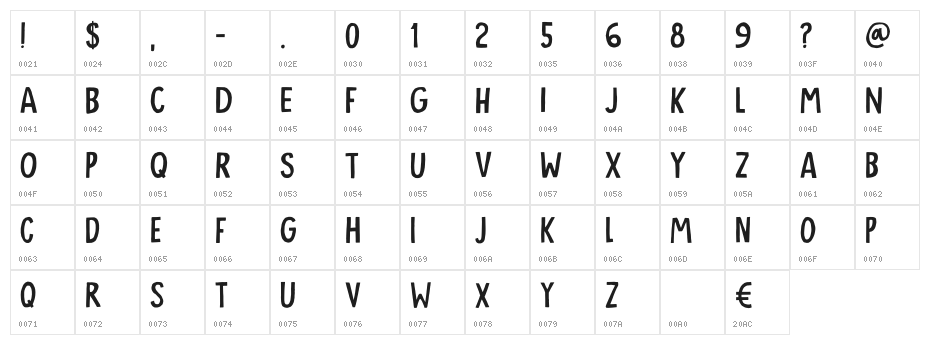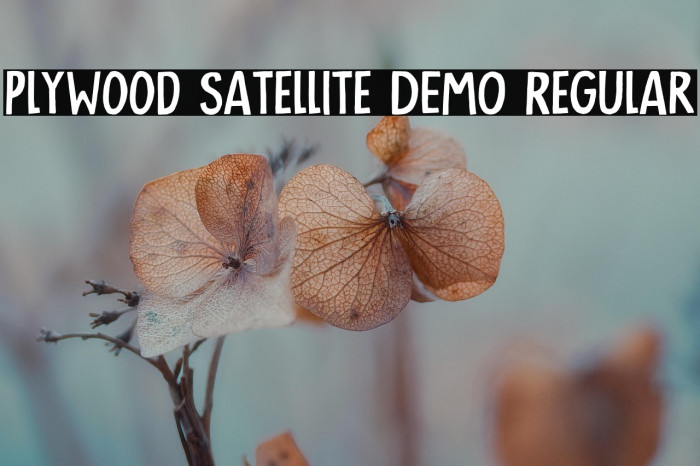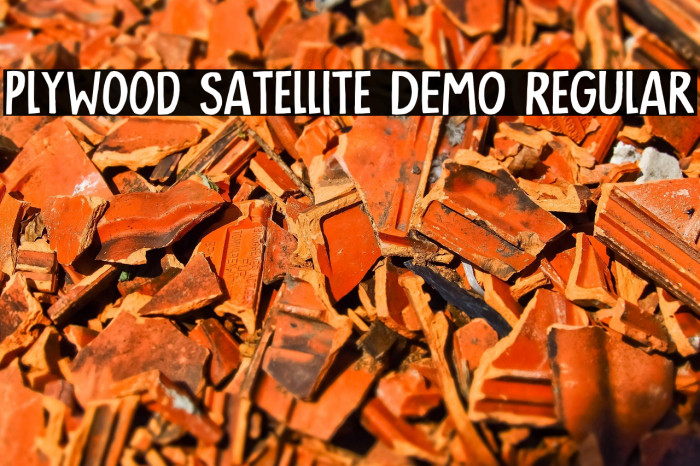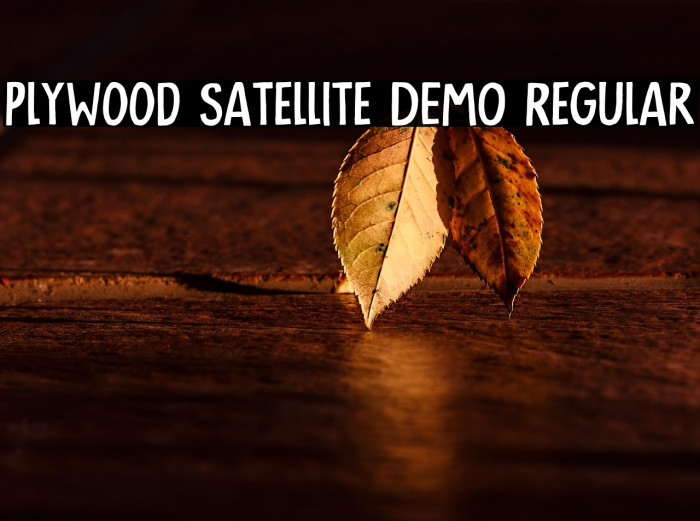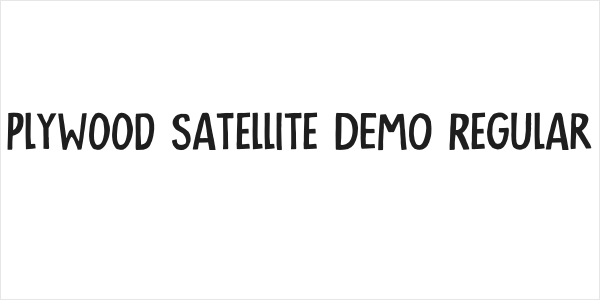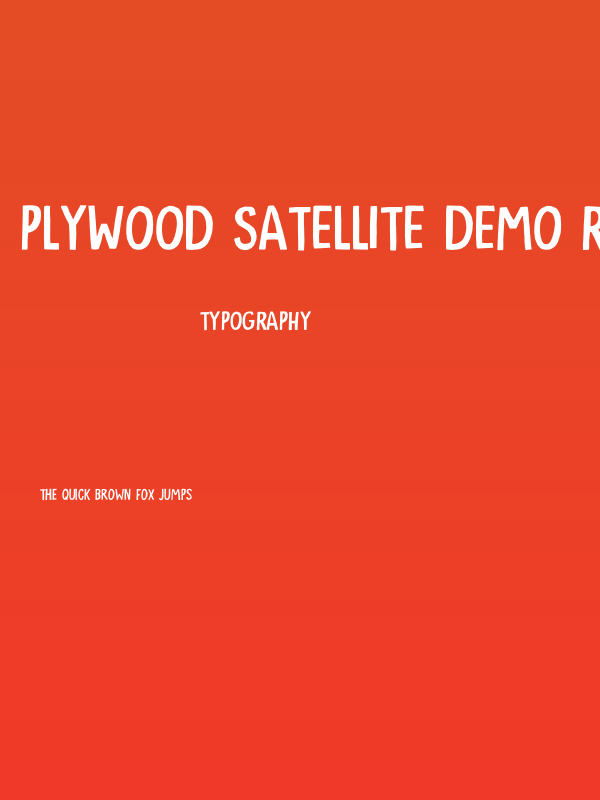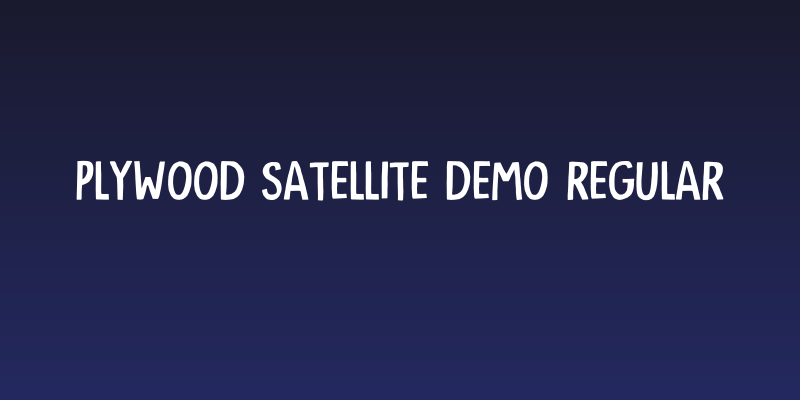
Plywood Satellite DEMO Regular Font
Plywood Satellite DEMO Regular Description
This font features a playful and quirky design, characterized by its irregular and hand-drawn appearance. The letters have a slightly uneven baseline, adding to its casual and informal style. The strokes are bold and consistent, giving it a strong presence while maintaining a friendly and approachable look. The unique design of the special characters, such as the asterisk and exclamation mark, adds an extra layer of creativity. This font is ideal for projects that require a fun and engaging aesthetic, making it perfect for children's books, posters, and creative branding.
| Proposed Projects | Ideal for children's books, playful posters, creative branding, and informal invitations. |